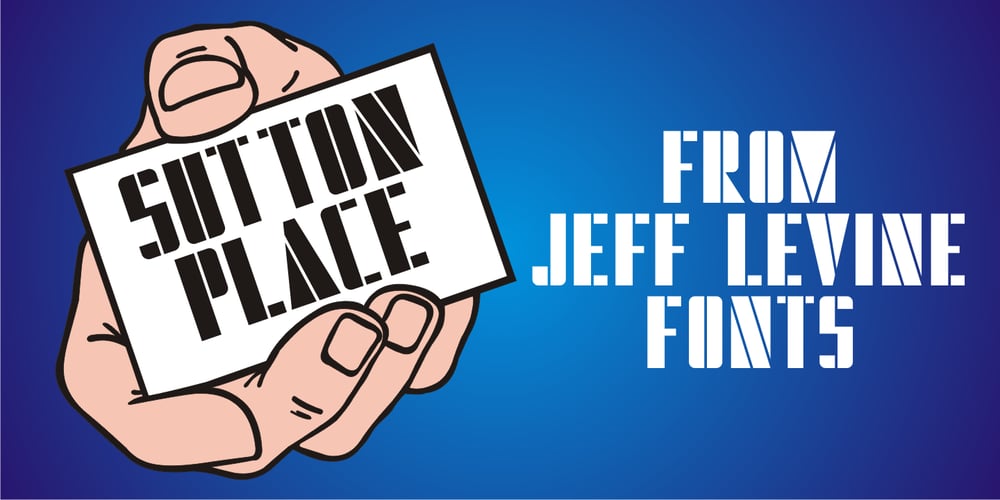
Sutton Place JNL
Sutton Place JNL font
Sutton Place JNL Font Family was designed by Jeff Levine and published by Jeff Levine. Sutton Place JNL contains 1 styles and family package options. Named for a Manhattan neighborhood, Sutton Place JNL is based on a 1930s-era poster advertising training in the “Household Arts” that was produced by the Federal Art Project in Ohio; a segment of the larger Depression Era WPA (Works Progress Administration).